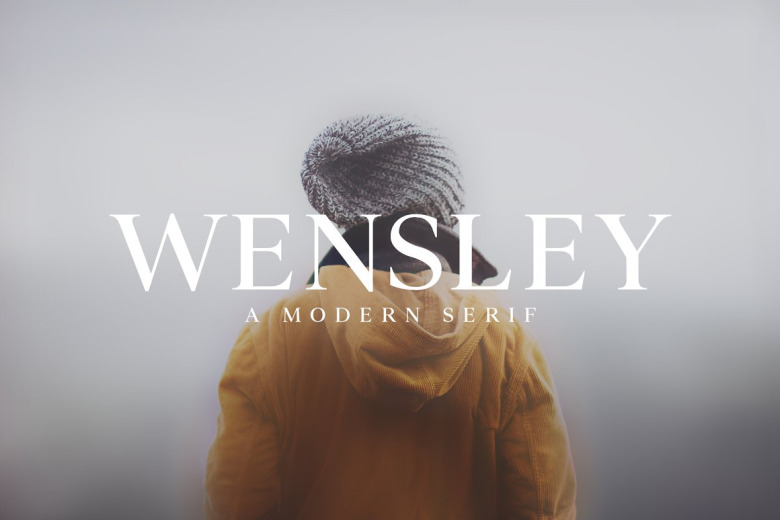
Wensley Font
This typeface is a font specially designed with special attention to the serif used. Made from font designer named Creativetacos. It includes all basic glyphs with Non-English characters. This font will pair beautifully with the script, signature or handwriting style.
Wensley is perfect for headlines, titles, magazines headings, logo’s, presentations, posters, name card, web layouts, invitations, books, branding, and nearly any creative design.